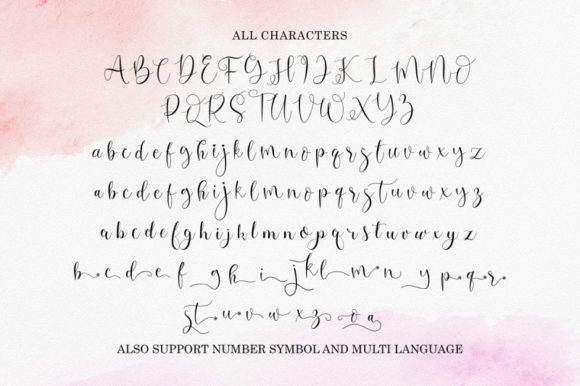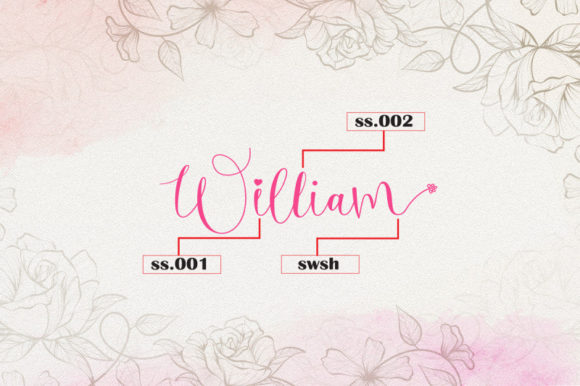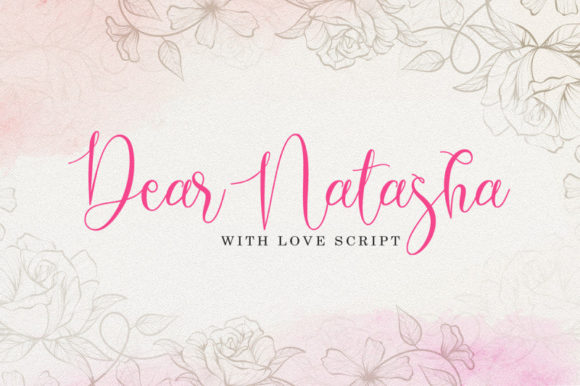
Introducing Dear Natasha Font: Elegance and Sophistication for Your Designs
Are you looking for a font that exudes elegance, sophistication, and a touch of natural beauty? Look no further than Dear Natasha Font. This stunning script font is designed to add a delicate and refined touch to your typographic designs, wedding invitations, and more. In this article, we’ll dive into the features and benefits of Dear Natasha Font, and explore how it can elevate your creative projects.
A Simple yet Delicate Script Font
Dear Natasha Font is a beautifully crafted script font that boasts a simple yet delicate design. Its elegant strokes and curves create a natural and refined feel that’s perfect for a variety of design applications. Whether you’re working on a wedding invitation, a branding project, or a typographic design, Dear Natasha Font is sure to impress.
Equipped with Swashes and Lowercase Alternatives
One of the standout features of Dear Natasha Font is its inclusion of swashes and lowercase alternatives. These additional design elements allow you to add a touch of personality and flair to your designs, taking them to the next level. The swashes can be used to create beautiful connections between words, while the lowercase alternatives provide a fresh and modern take on traditional script fonts.
Ideal for Typographic Designs, Wedding Invitations, and More
Dear Natasha Font is specifically designed with typographic designs, wedding invitations, and other elegant applications in mind. Its natural and elegant feel makes it perfect for:
• Branding and packaging designs
• Typographic designs and quotes
• Event invitations and programs
• Signage and display designs
Why Choose Dear Natasha Font?
So why choose Dear Natasha Font for your next design project? Here are just a few compelling reasons:
• Elegance and sophistication: Dear Natasha Font exudes refinement and poise, making it perfect for high-end designs.
• Versatility: With swashes and lowercase alternatives, you can create a wide range of design variations.
• Easy to read: Despite its elegant design, Dear Natasha Font remains clear and easy to read.
• Unique and distinctive: Stand out from the crowd with a font that’s both beautiful and unique.
Tips for Using Dear Natasha Font
To get the most out of Dear Natasha Font, here are a few tips to keep in mind:
• Pair with complementary fonts: Combine Dear Natasha Font with complementary fonts to create a striking contrast.
• Experiment with swashes: Don’t be afraid to try out different swash combinations to add personality to your designs.
• Use for headlines and titles: Dear Natasha Font is perfect for headlines and titles, where its elegance and sophistication can shine.
In conclusion, Dear Natasha Font is a stunning script font that’s perfect for designers and crafters looking to add a touch of elegance and sophistication to their designs. With its simple yet delicate design, swashes, and lowercase alternatives, this font is sure to impress. Whether you’re working on a wedding invitation, typographic design, or branding project, Dear Natasha Font is a versatile and beautiful choice.